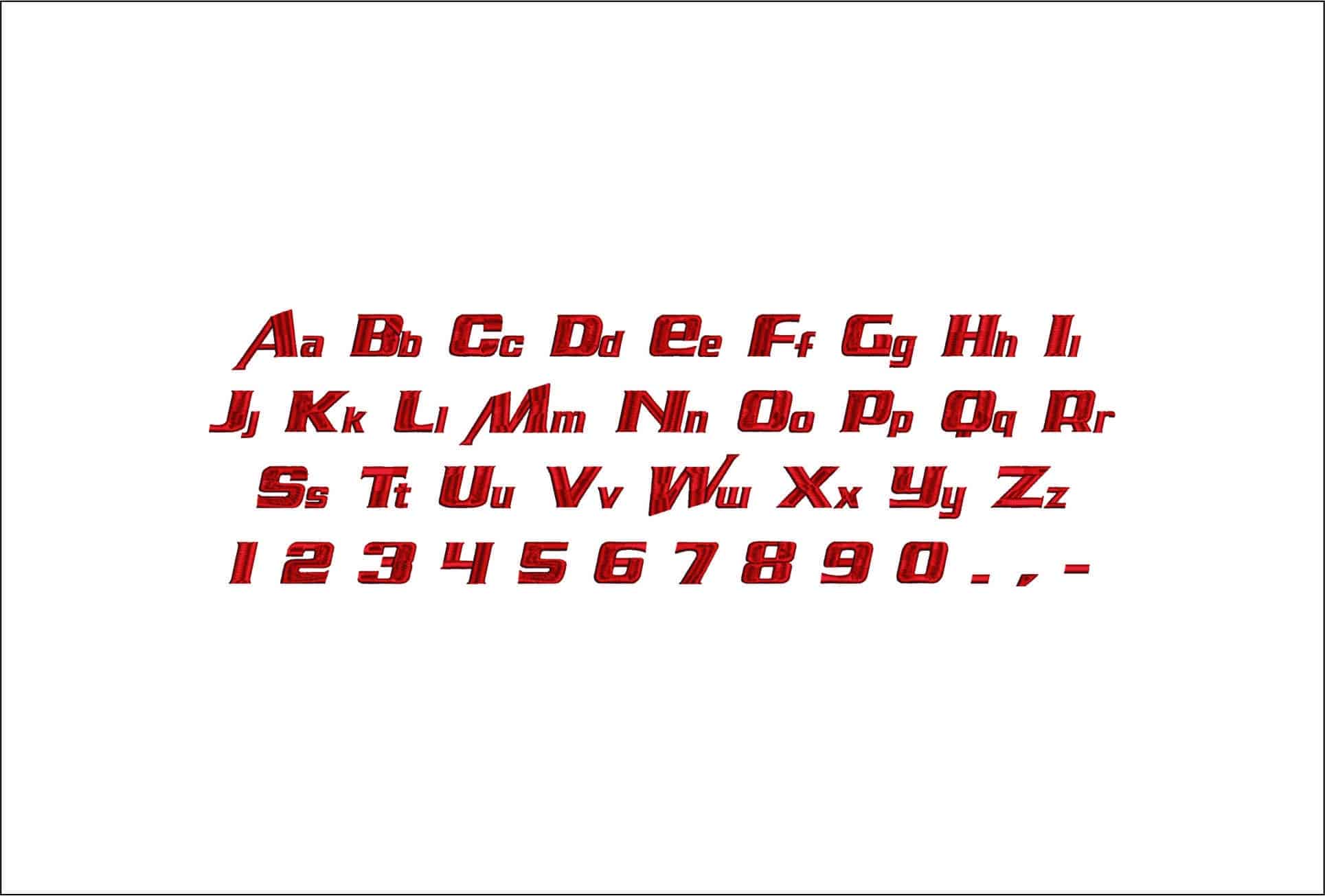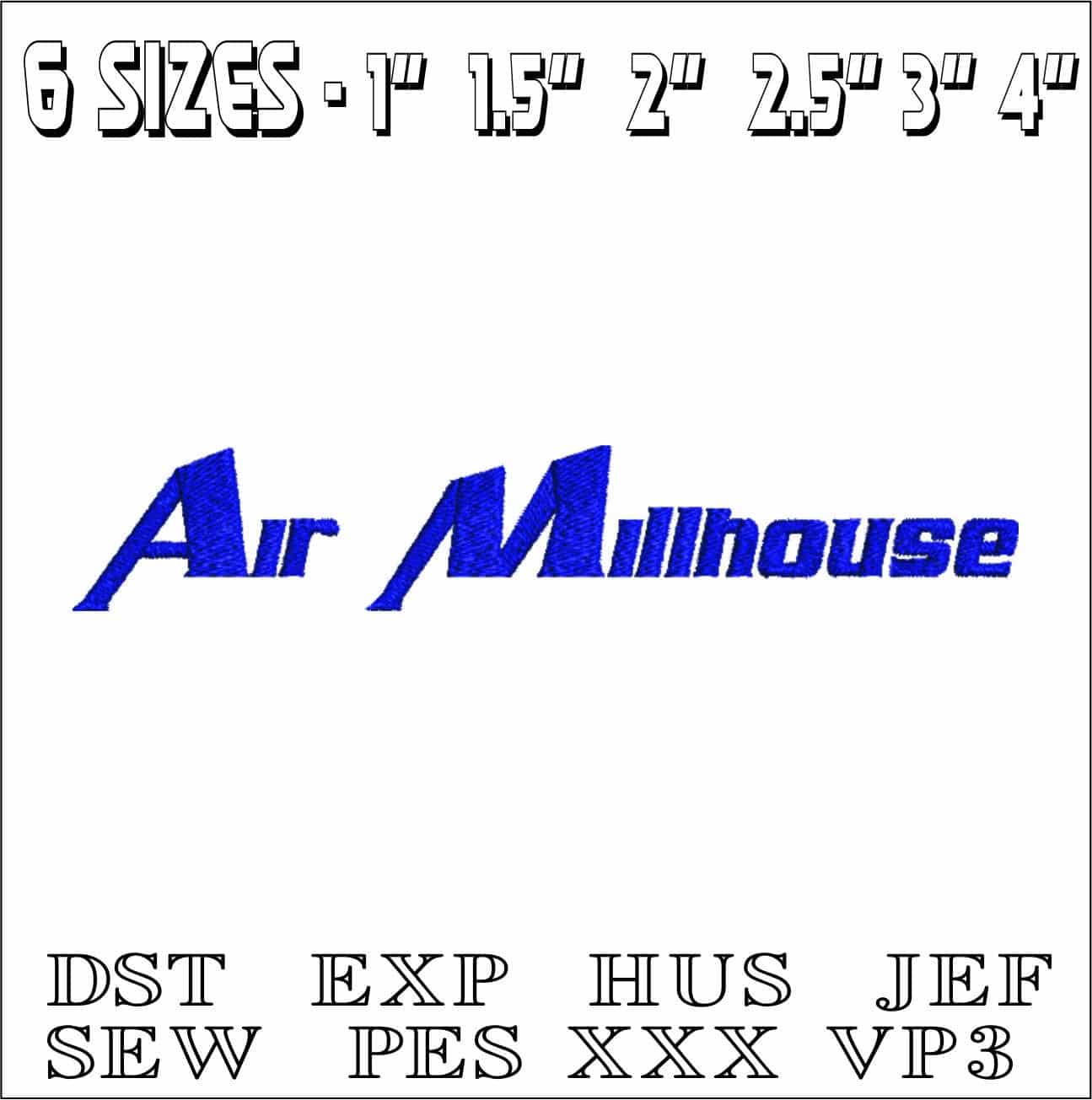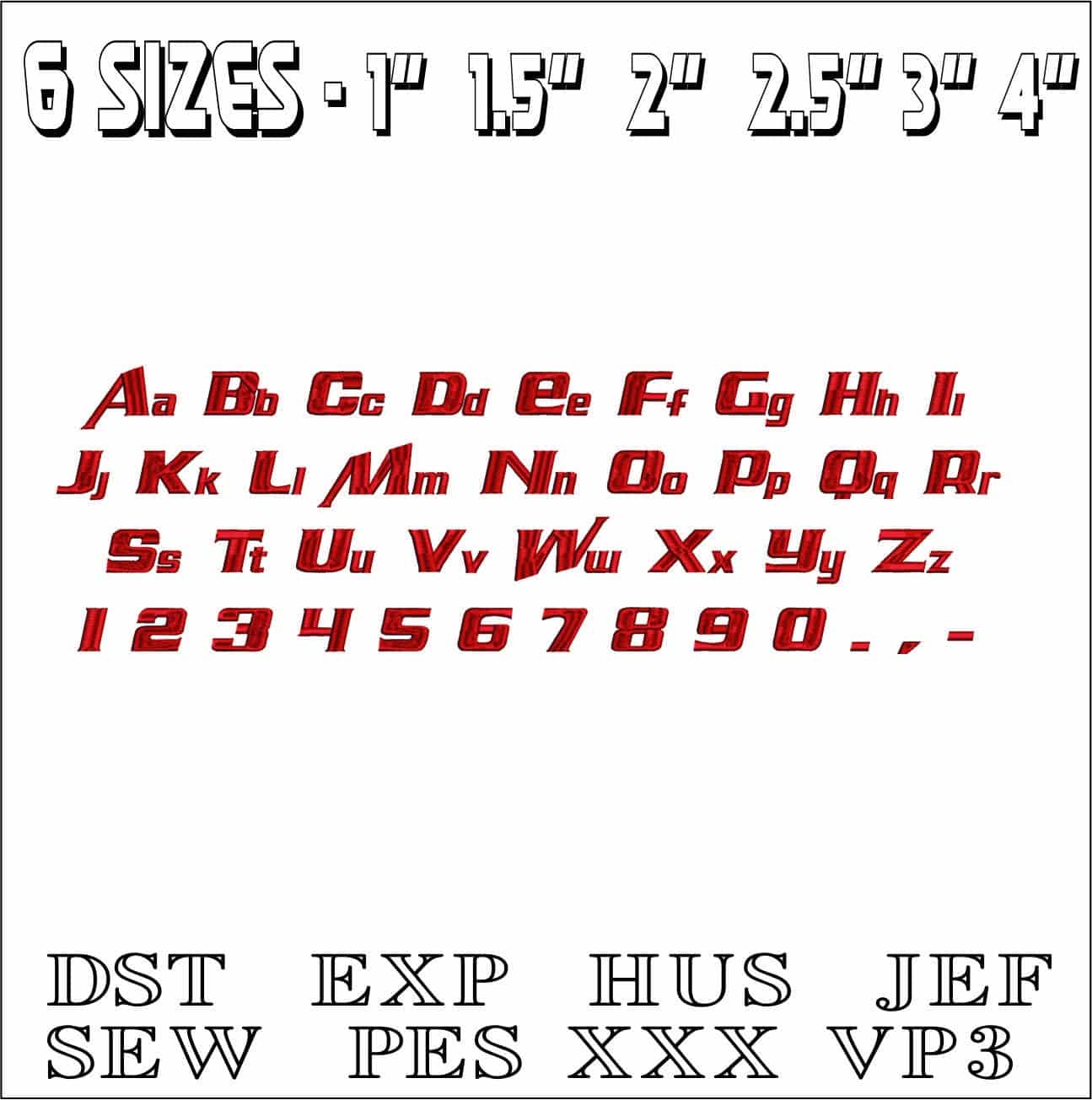
Air Millhouse Font Embroidery Font Set - 1" 1.5" 2" 2.5" 3" and 4" - Machine Embroidery Alphabet Font - instant download
Air Millhouse Font Embroidery Font Set - 1" 1.5" 2" 2.5" 3" and 4", Individual Alphabet Font - instant download
This is such a great alphabet for names and sayings! Beautiful and classy! Also available in larger sizes: